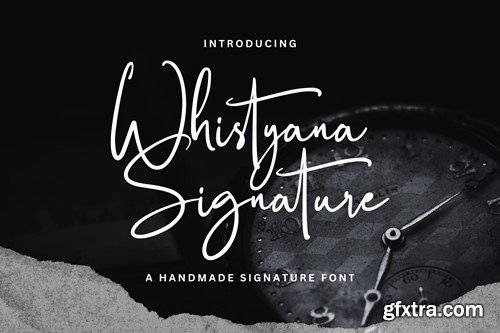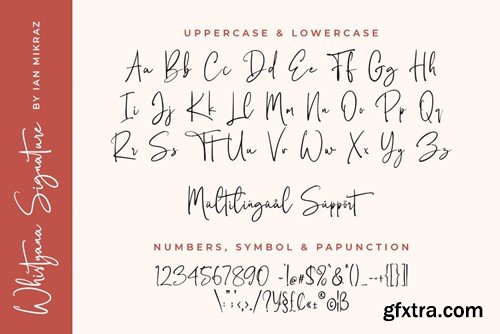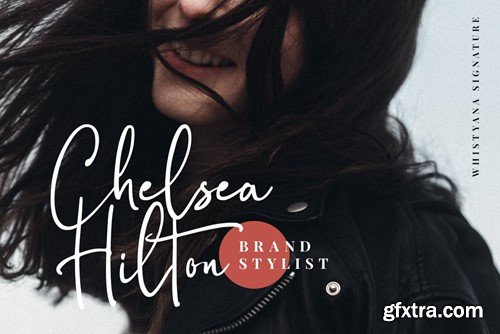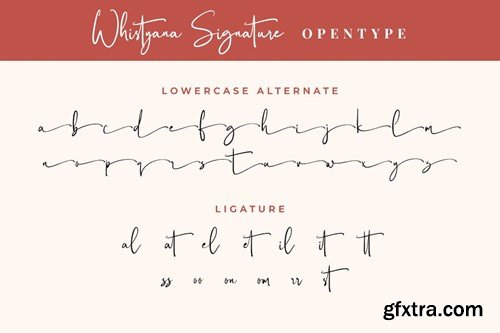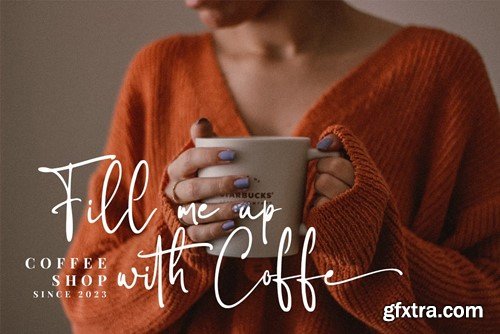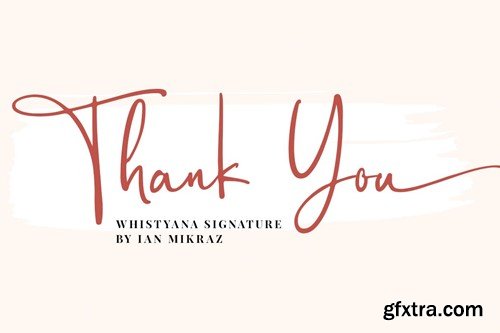
Whistyana - 一种手工制作的签名字体 EQU3DS4
Whistyana - A Handmade Signature Font Whistyana is a charming handmade signature font that adds a personal touch to any project. With its authentic and genuine feel, this font is perfect for creating designs that require a sense of individuality and uniqueness. Whether you're working on personal branding, greeting cards, or social media posts, Whistyana's warm and inviting strokes will infuse your work with a personal, human touch. Its versatile nature and distinctive appeal make it an excellent choice for designers seeking to create genuine and one-of-a-kind visuals that resonate with authenticity and sincerity. Introducing Whistyana, the handmade signature font that brings a personal and unique touch to your designs. With its genuine and authentic strokes, Whistyana is perfect for adding a warm and inviting feel to various projects, from personal branding to heartfelt greeting cards. Its versatility and distinctive charm make it an ideal choice for designers looking to create visuals that reflect sincerity and individuality. Infuse your designs with the heartfelt touch of Whistyana and create visuals that speak directly to the heart. Features File Include: Thank you